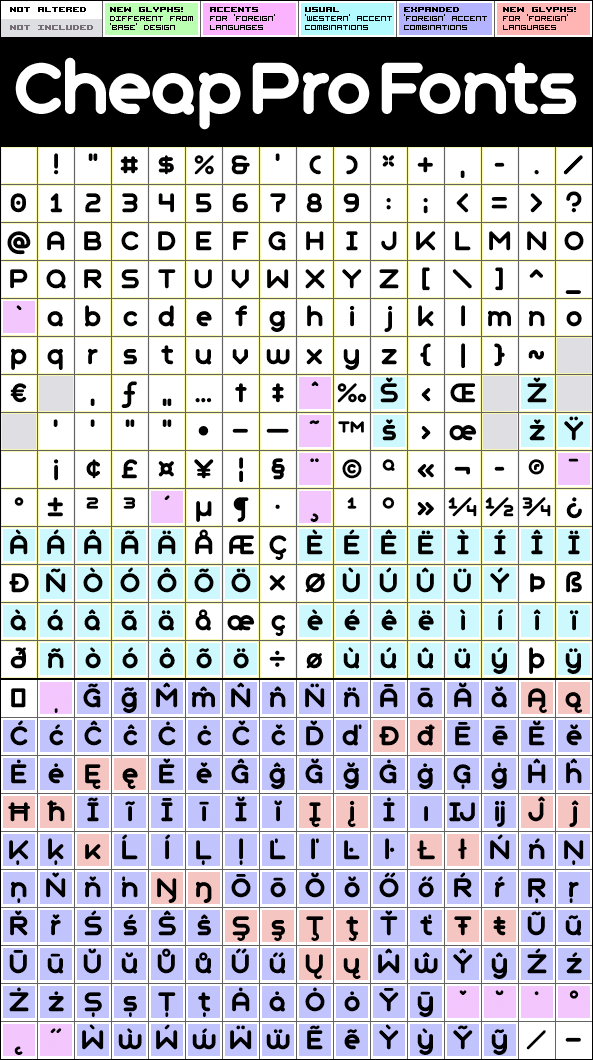
Geometry Soft Pro Bold N
Geometry Soft Pro Bold N by Roger S. Nelsson
Designer:
Roger S. Nelsson
Highlights:
377 glyphs!
752 class kernpairs
= 15230 kerning pairs
Description:
The "Geometry Pro" family has been designed to be the final word in purely geometric fonts, and this rounded "Soft" sub-family is the ultimate web 2.0 style font collection.
Even though it is strictly geometric (as drawn with a compass and a ruler fixed to 90 and 45 degree angles) it is not slavishly modular: letters have differing widths, and the sidebearings, spacing and kerning has been finely adjusted to create smooth text.
The Soft family contains three weights each with 6 variants:
- A is the basic form and the starting point
- B has more dynamic and modern shapes
- C has open and swirly shapes
- X is the serious text version
- Y has a very horizontal look
- Z is a collection of all the remaining more funky shapes
Mix and match to your heart's desire!.
Please enjoy the free "Bold N" version - this "notched" variant lets you test out the quality of the outlines and the language support.
Geometry Soft Pro Bold N is a professionally reworked font that contains an extended character set for setting text in 65 languages requiring more than the basic A-Z!